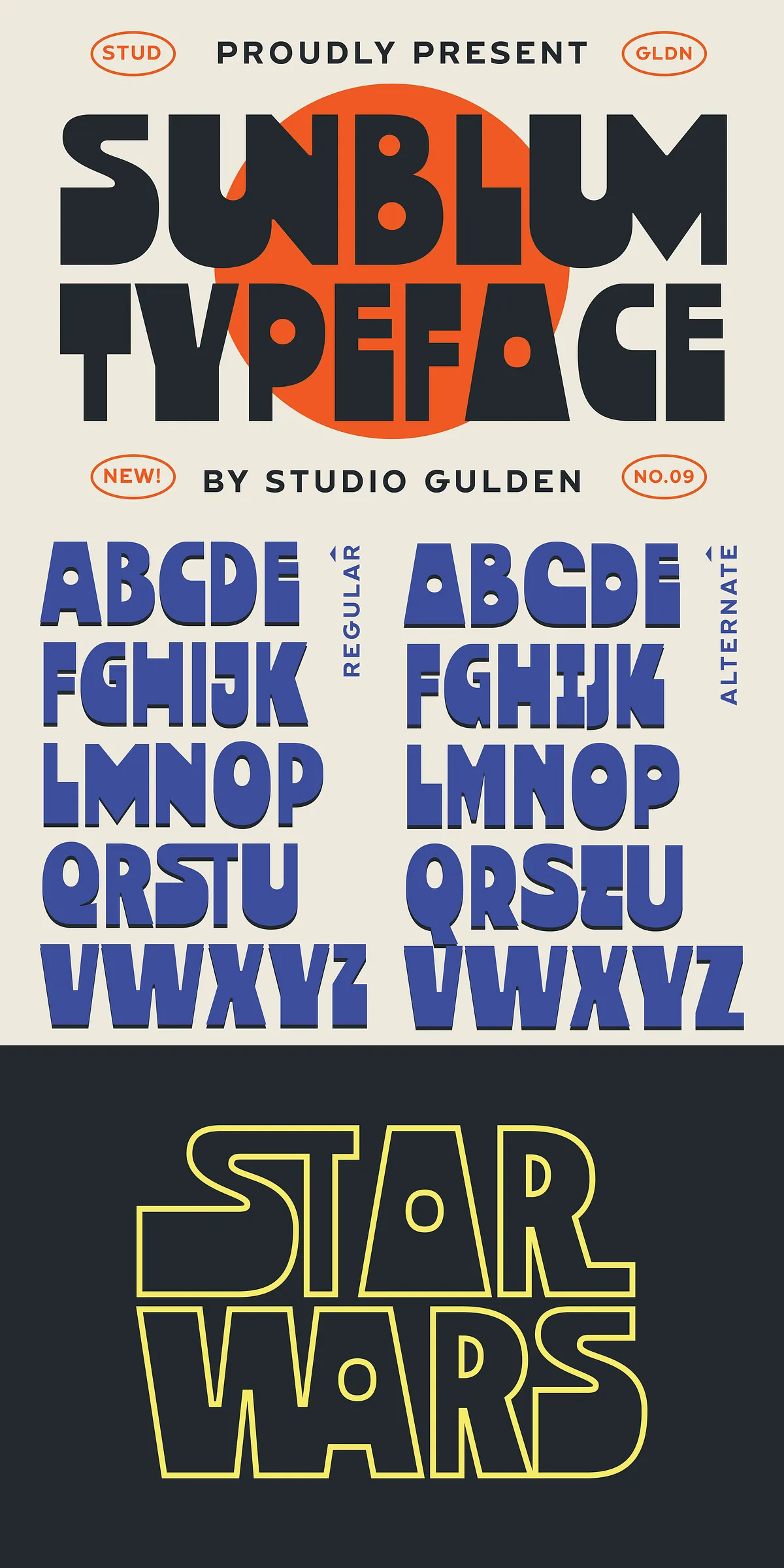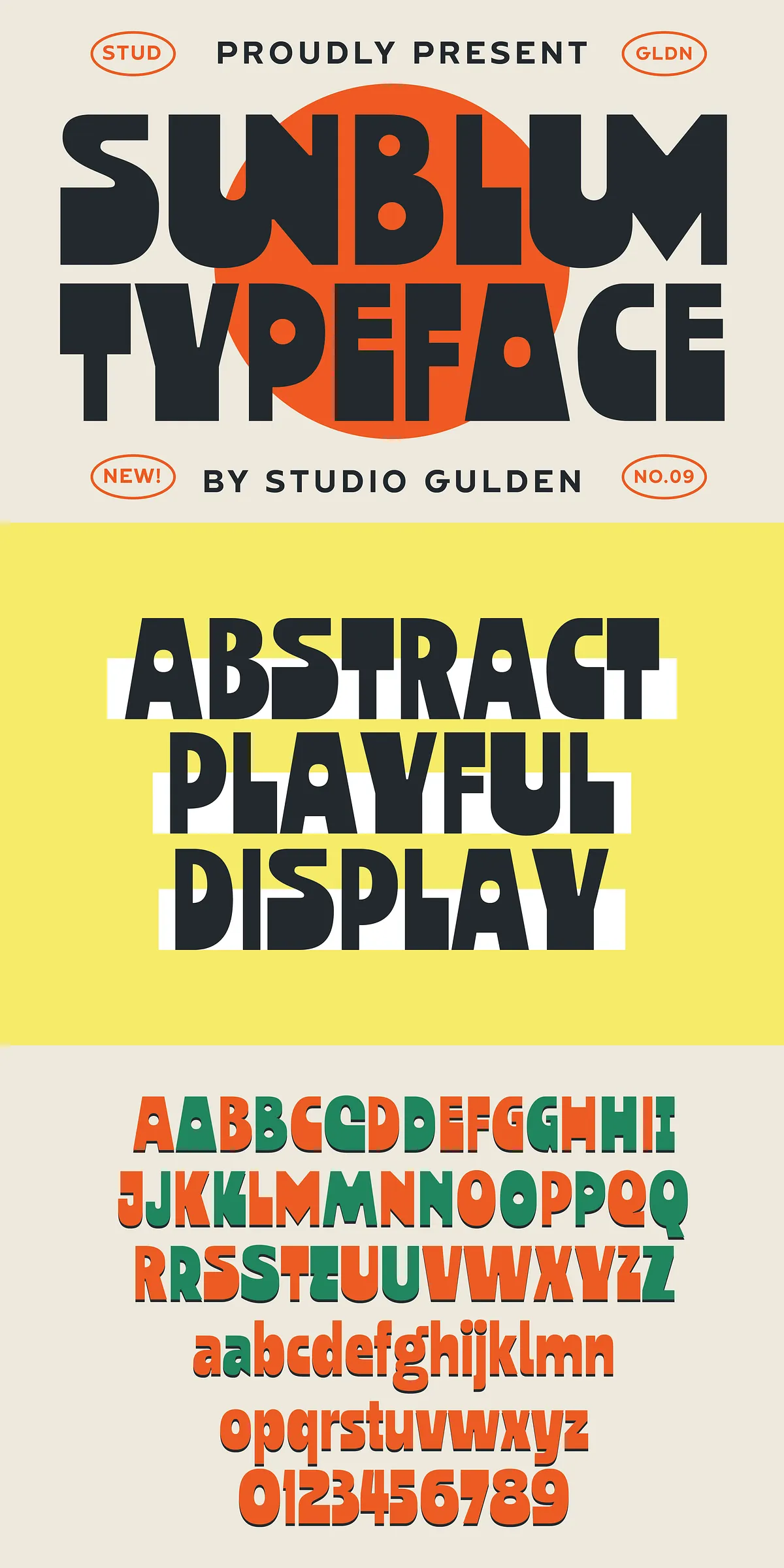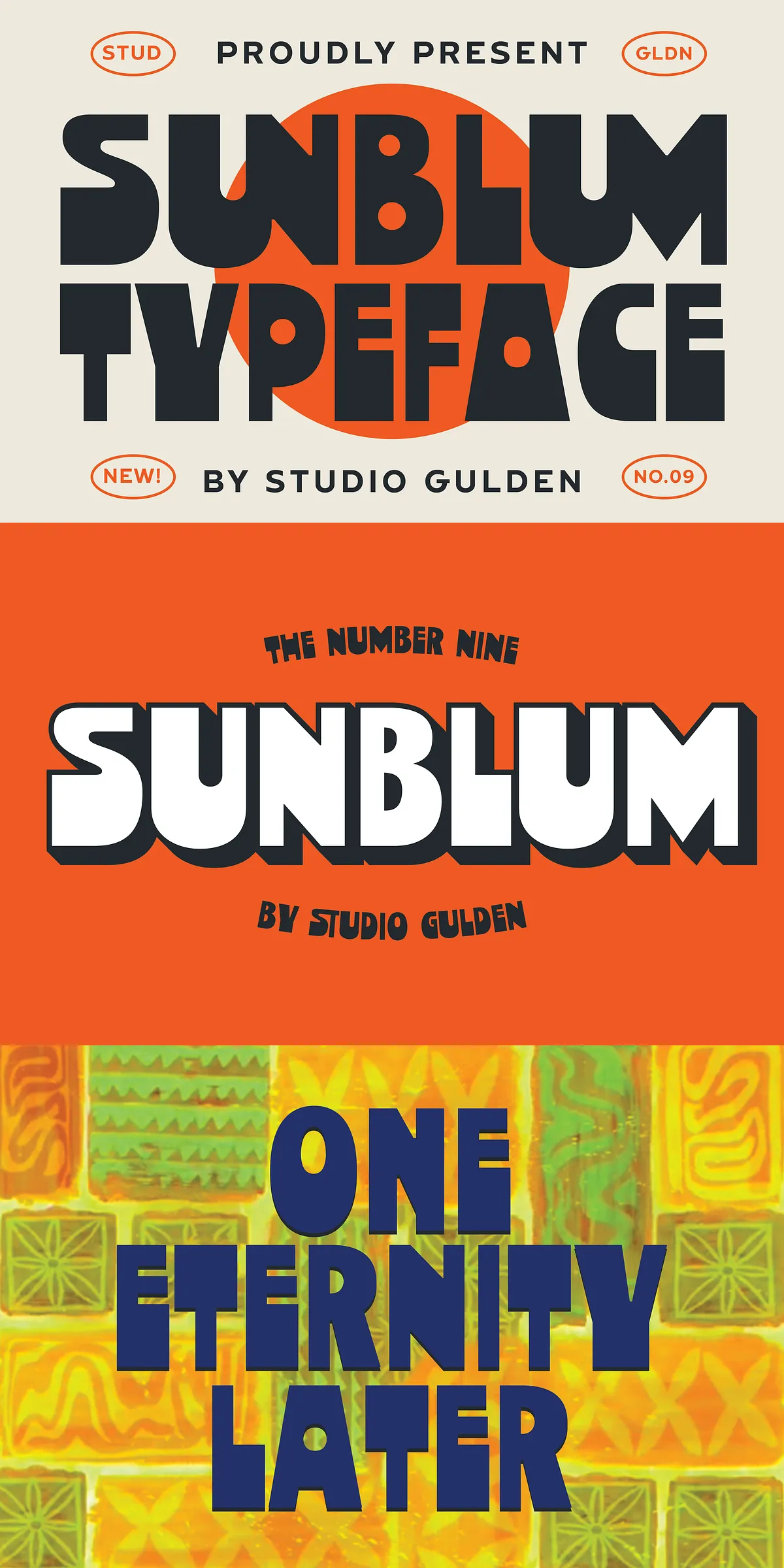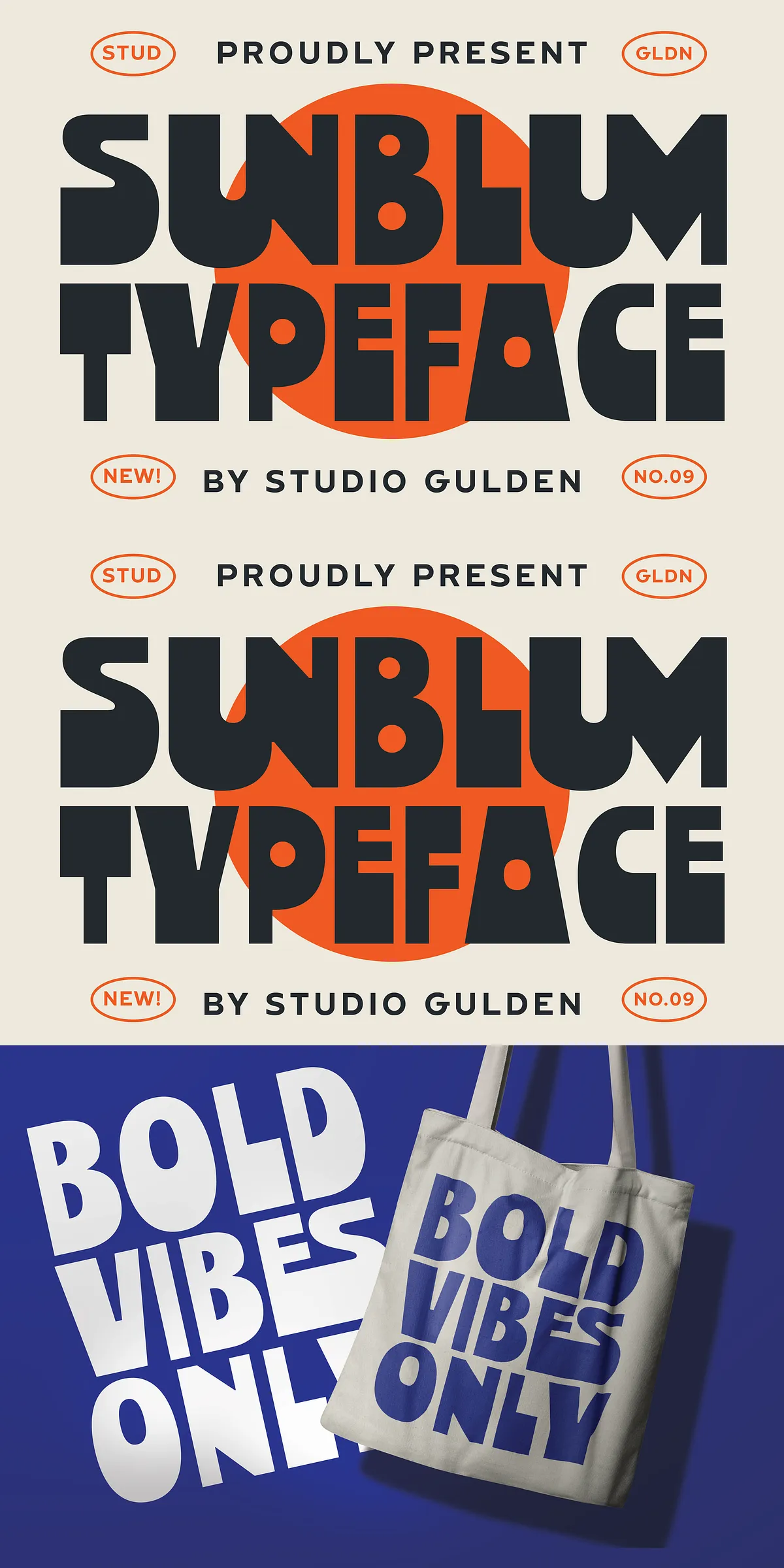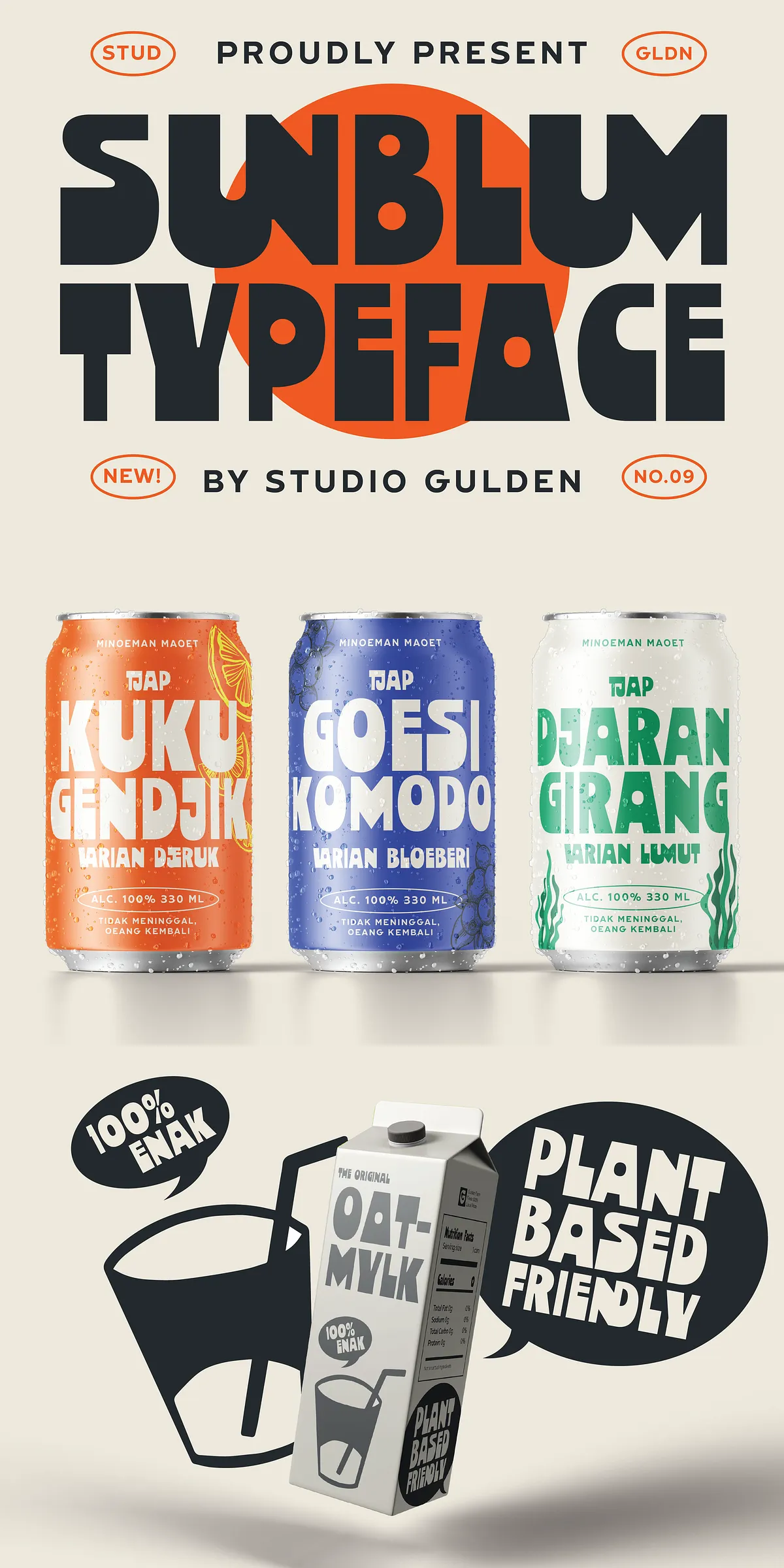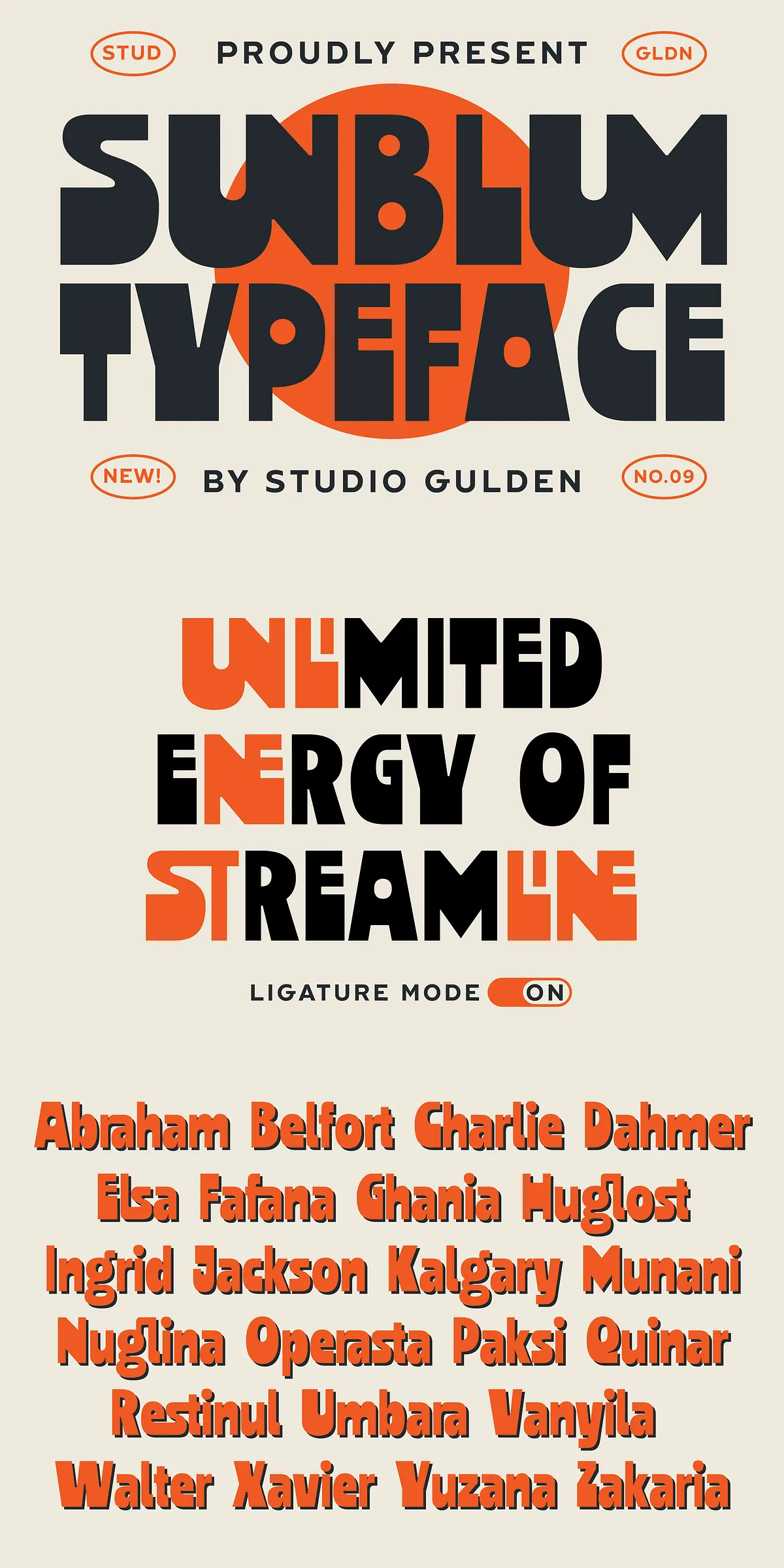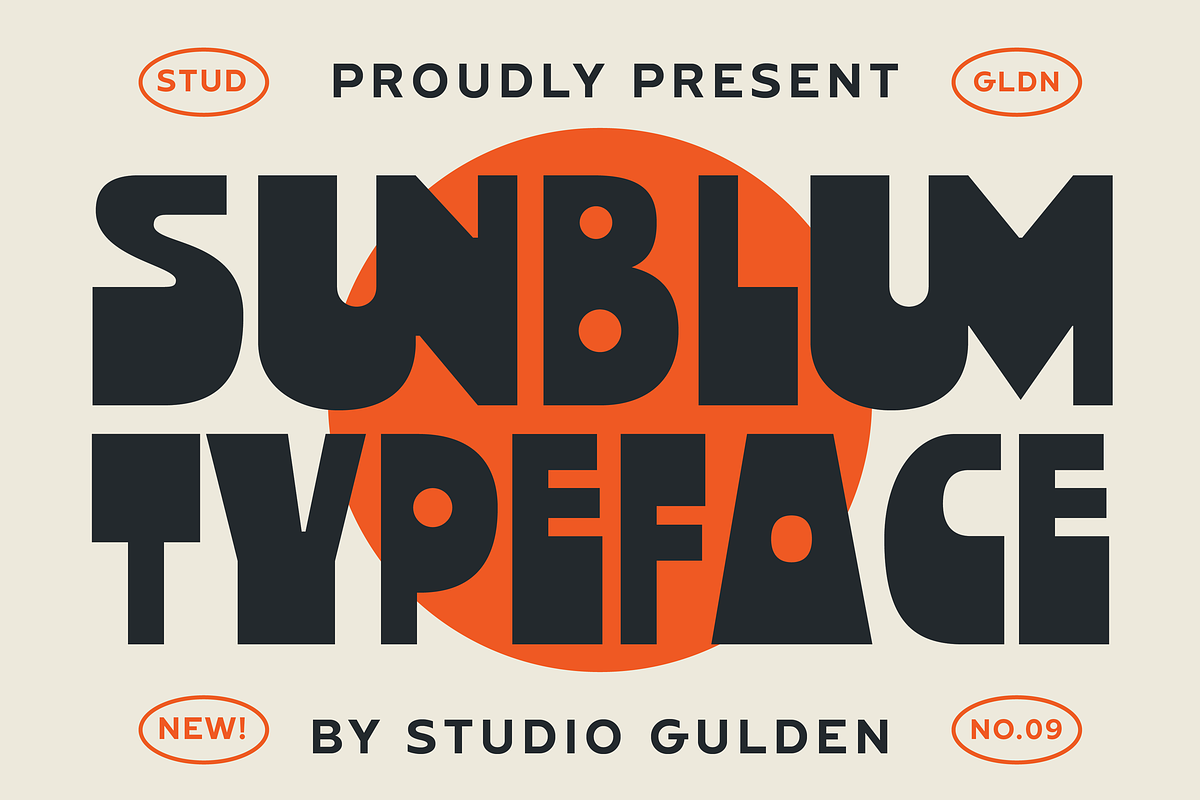
SG – SUNBLUM
Meet SG-SUNBLUM — a groundbreaking modern sans-serif font engineered to disrupt the ordinary and dominate the visual landscape. If you’re searching for a typeface that doesn’t just convey text, but delivers impact, presence, and personality, SG-SUNBLUM is your ultimate weapon. Designed with sharp precision and fearless creativity, this font breaks traditional boundaries with its elongated, sculpted strokes and asymmetrical letterforms that explode with energy.
Why SG-SUNBLUM Is Built to Stand Out
Unlike generic fonts that fade into the background, SG-SUNBLUM is crafted to be seen — and remembered. Its striking elongation and dynamic contrast between thick and thin strokes create a sense of forward momentum. Letters don’t just sit on the page — they stride across it, commanding attention for logos, headlines, branding campaigns, and eye-catching display type. Whether you’re designing a luxury product label, a music festival poster, or a high-end fashion website, SG-SUNBLUM transforms your text into a visual statement.
Key Features That Elevate Your Design
• Asymmetrical Letterforms – Each character is uniquely structured to create visual tension and interest, avoiding uniformity and promoting a sense of modern artistry.
• Elongated, Sculpted Strokes – The extended terminals and dramatic verticals give the font a sense of elegance, motion, and architectural strength.
• Comprehensive Multilingual Support – From Latin-based European languages to Cyrillic, Greek, and extended character sets, SG-SUNBLUM supports global communication with seamless accuracy.
• Extensive Special Characters – Includes mathematical symbols, currency signs, punctuation, decorative glyphs, and more — perfect for technical, editorial, and creative projects.
Unleash Your Creativity in Any Project
SG-SUNBLUM isn’t just a font — it’s a design catalyst. Use it to:
• Build Unforgettable Logos – Make your brand stand apart with a typography-driven identity that signals boldness and innovation.
• Design High-Impact Headlines – Turn article titles, product names, and event banners into magnetic focal points.
• Enhance Digital Content – Whether you’re building a landing page, editing a newsletter, or designing a social media graphic, SG-SUNBLUM delivers premium readability with a modern edge.
• Revolutionize Packaging & Merchandise – Give your product a unique voice with bold, sculpted text that looks expensive and intentional.
• Create Artistic Text Treatments – Use the font in combination with shadows, outlines, and color gradients to elevate your compositions into digital art.
Why Designers and Brands Choose SG-SUNBLUM
Because it’s not just about looking different — it’s about feeling powerful. SG-SUNBLUM brings a sense of motion, confidence, and contemporary sophistication to any project. It’s designed for creators who refuse to play it safe. This is the font for visionaries, disruptors, and brands that know their audience demands more than just “good typography” — they want unforgettable design.
With its advanced OpenType features, SG-SUNBLUM supports ligatures, stylistic alternates, and contextual substitutions, giving you the tools to craft nuanced, expressive text without manual tweaks. No matter how large your project or how complex your layout, the font renders crisply at all sizes — from a 12-point caption to a 200-point headline.
Perfect for both print and digital, SG-SUNBLUM scales seamlessly across devices, making it ideal for responsive websites, mobile apps, and print-on-demand materials.
Make Your Message Impossible to Ignore
Stop blending in. Start making bold statements. With SG-SUNBLUM, your words don’t just communicate — they captivate, intrigue, and command attention.
Choose SG-SUNBLUM. Define your style. Lead the conversation.